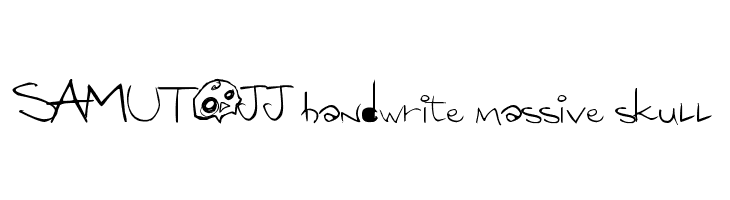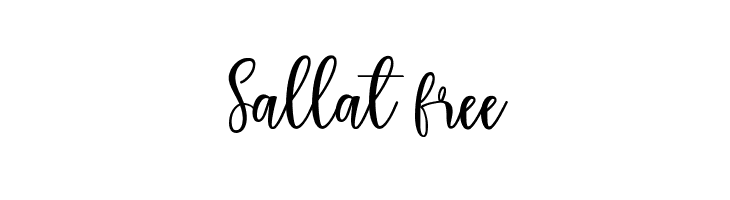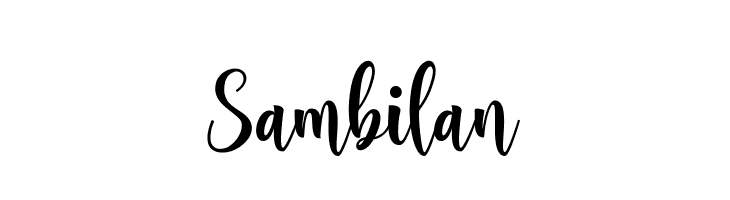
A bold, cursive font with fluid, connected strokes and strong legibility.
An elegant, flowing script font with ornate, cursive letterforms.
An elegant, flowing script font with intricate swirls and flourishes.
An elegant, flowing script font with whimsical loops and curves.
A bold, cursive script font with elegant loops and swashes.
A playful, edgy font with hand-drawn strokes and whimsical skull motifs.
A bold, Western-inspired font with thick strokes and decorative cut-out shapes.
An elegant script font with flowing, cursive strokes and dramatic flourishes.